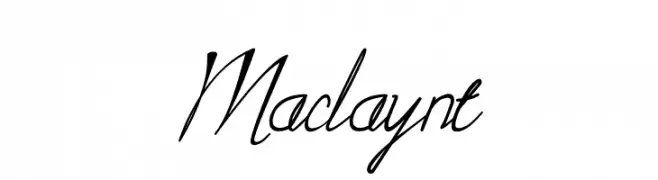
A fluid and elegant cursive script font with interconnected letters.
A cursive, handwritten font with elegant, flowing lines.
A fluid, elegant handwritten font with thin, elongated strokes.